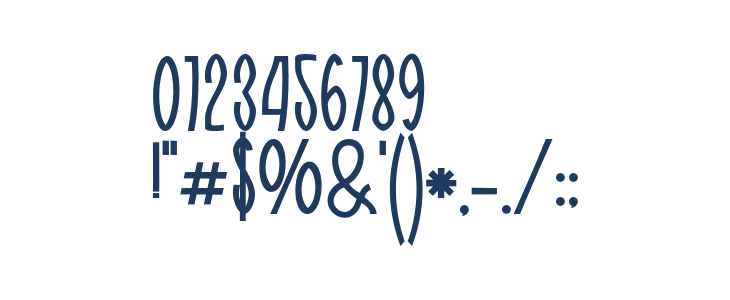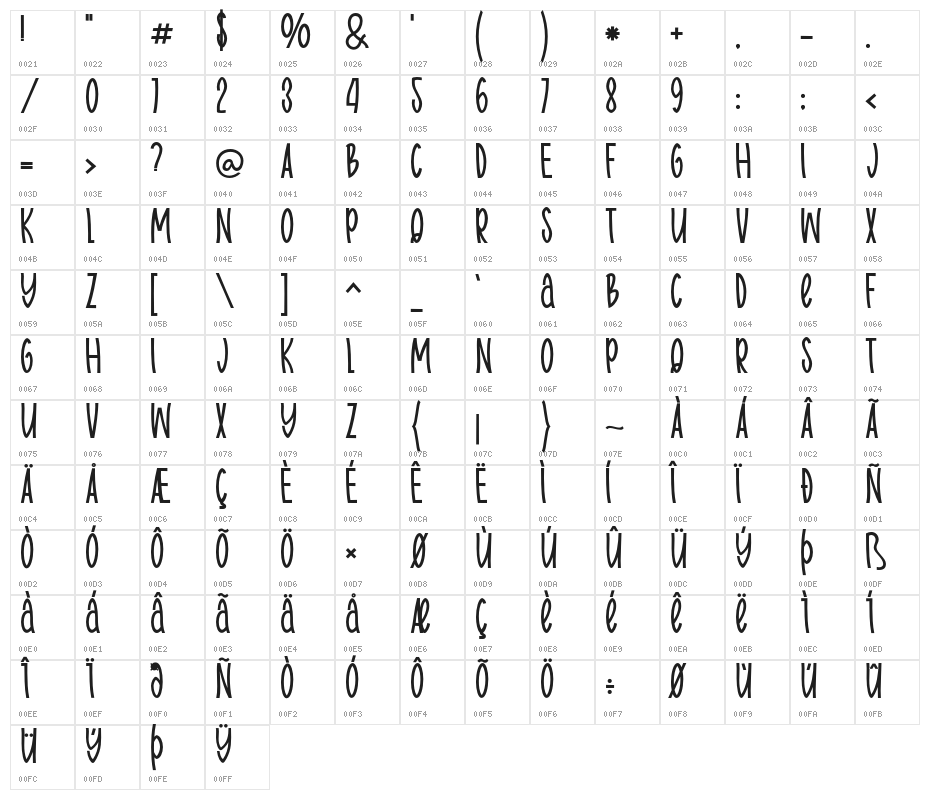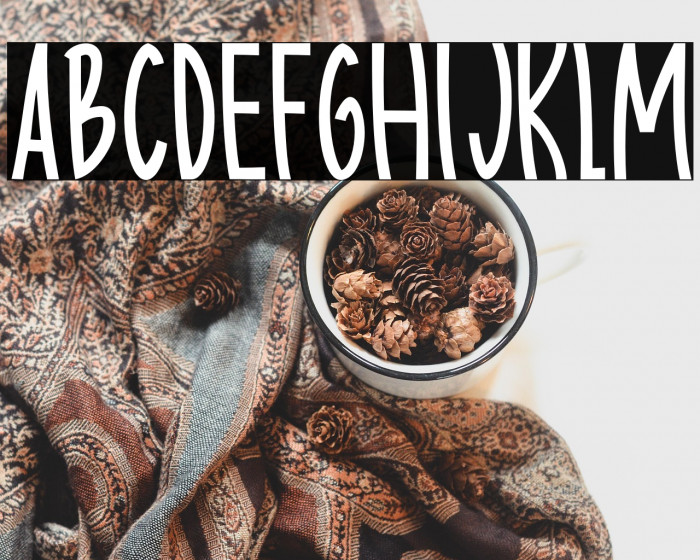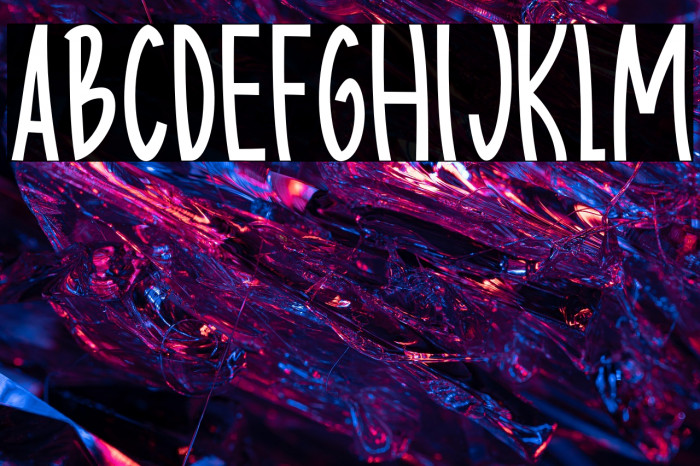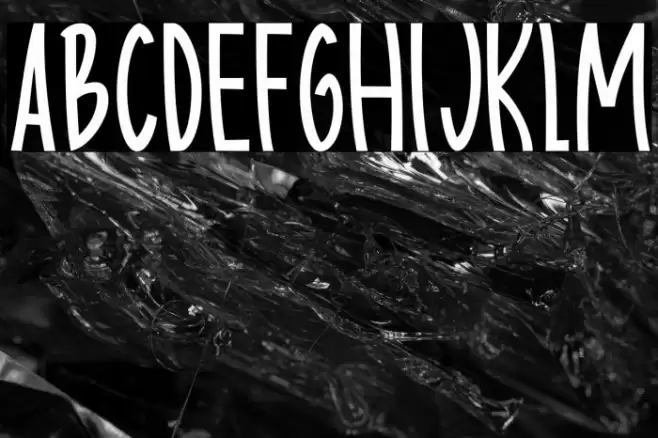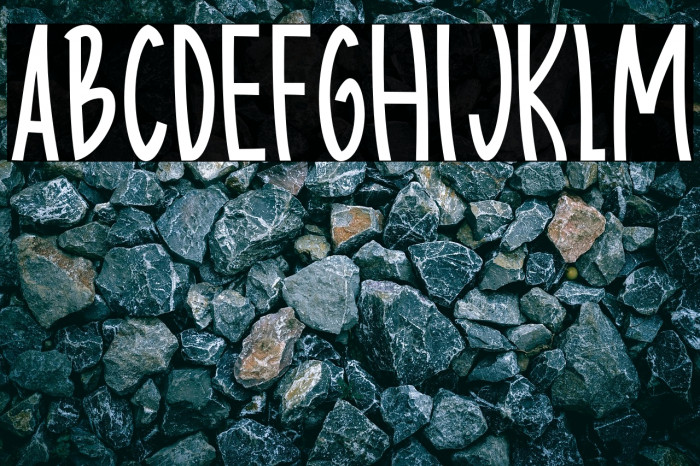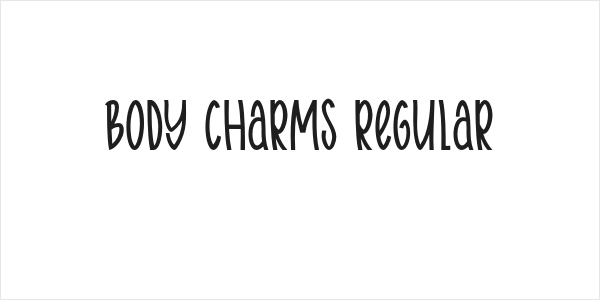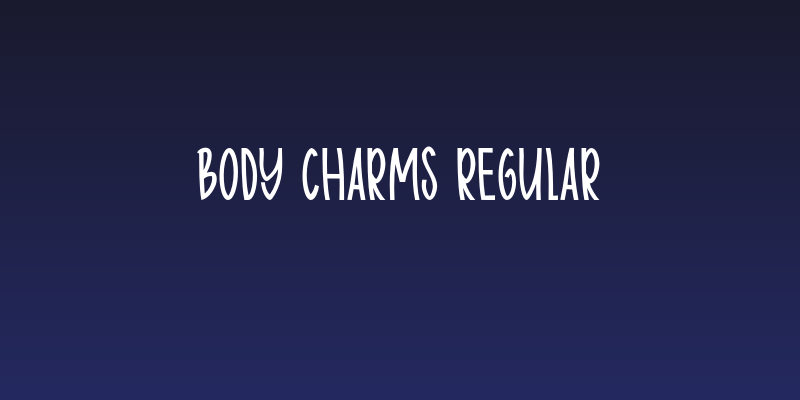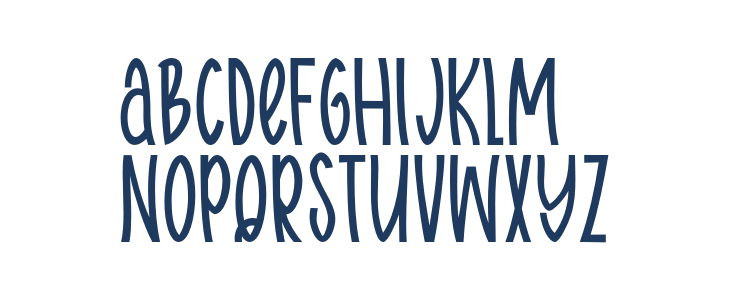
Body charms Regular Font
Body charms Regular Description
This font features a playful and whimsical style with tall, narrow characters that have a hand-drawn appearance. The letters are slightly irregular, adding to the casual and informal feel. The strokes are consistent in width, giving it a uniform look despite its quirky nature. The uppercase and lowercase letters maintain a cohesive design, while the numbers and special characters complement the overall aesthetic. This font is ideal for projects that require a fun and approachable vibe.
| Proposed Projects | Ideal for children's books, greeting cards, playful branding, and creative posters. |